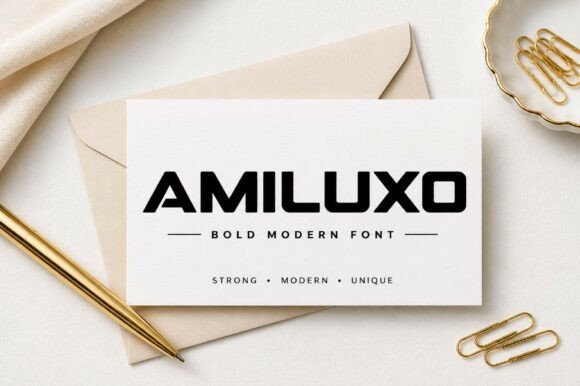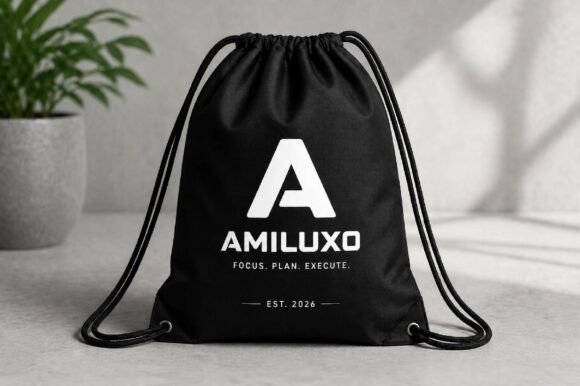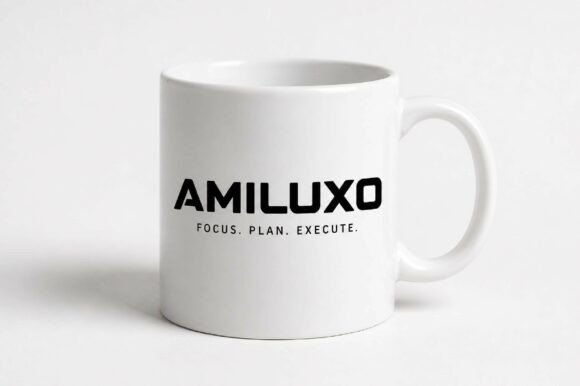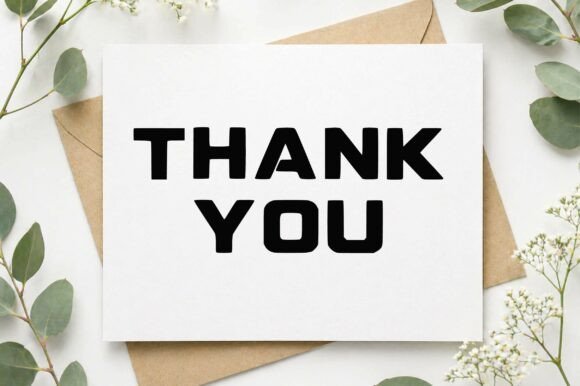
Amiluxo Font
Amiluxo is a bold and modern sans serif font designed with a strong geometric structure and clean lines. It delivers a powerful and professional look, making it perfect for modern design needs. This font is ideal for branding, logos, posters, headlines, social media graphics, and creative projects that require a bold and confident style.